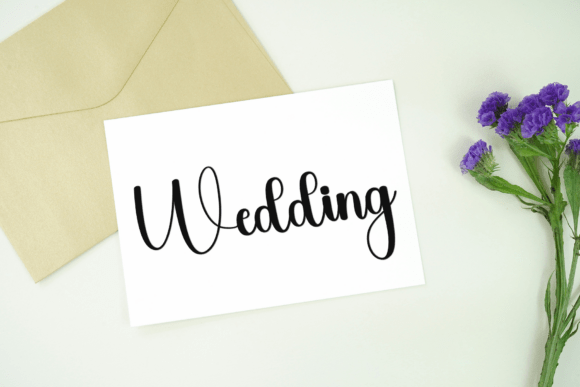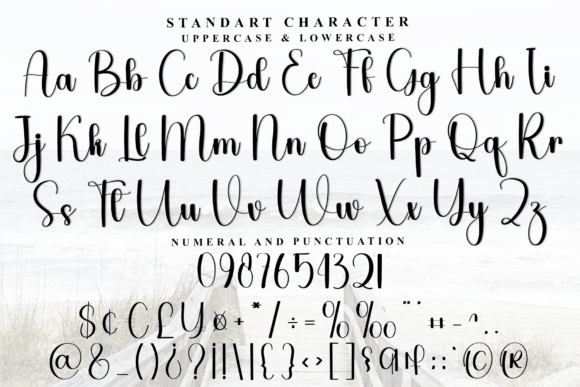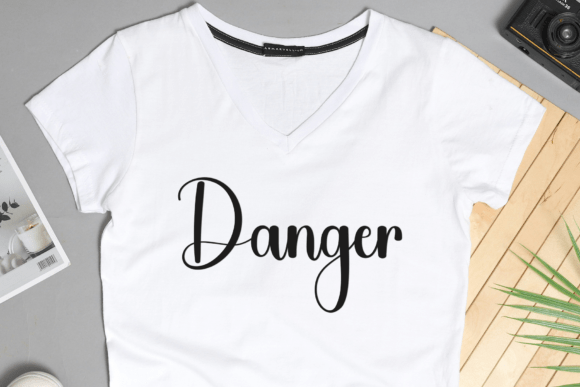
Introduction to Quantum Quality Font
Have you ever been working on a creative project and stumbled upon that perfect font that makes everything click? For designers, this moment is like finding a needle in a haystack – it’s a game-changer. And that’s exactly what we’re about to dive into – the incredible Quantum Quality Font that’s taking the design world by storm.
This exceptional font combines the charm of handwritten script with a modern twist, making it a standout choice for branding, wedding invites, quotes, and lifestyle blog graphics. Its fluid strokes and natural curves evoke the feeling of real handwriting, adding a personal touch to any project.
As a valuable resource for designers, the Quantum Quality Font offers a high-quality design solution that’s both elegant and versatile. With its smooth flow and subtle nuances, it’s perfect for creating visually appealing designs that leave a lasting impression.
Key Features of Quantum Quality Font
- High-quality design resource for creative projects, suitable for both personal and commercial use.
- Transparent background option, allowing for seamless integration with various design elements and backgrounds.
- Includes a comprehensive character set, supporting multiple languages and scripts.
- Designed to work at high resolutions, up to 300 DPI, ensuring crisp and clear typography in various print and digital applications.
- Unique, modern design aesthetic, perfect for adding a touch of sophistication and elegance to any creative project.
Honest Review: Quantum Quality Font
I recently stumbled upon the Quantum Quality Font, a high-quality design resource that’s perfect for creative projects. One thing that caught my attention was its sleek and modern design style, making it an excellent choice for a wide range of applications.
What works well: ✨ The font has a wide range of styles, from light to bold, which allows for flexibility in design projects. The transparent background makes it easy to use with any color scheme or image.
- The Quantum Quality Font is a great resource for designers who want a professional-looking font without breaking the bank.
- The font is highly customizable, making it easy to adapt to different design styles.
However, there are a few limitations: ⚠️ The font is only available in a limited number of languages, which may be a drawback for designers working on international projects.
Overall, I’m impressed with the Quantum Quality Font. It’s a great addition to any designer’s toolkit, offering a high-quality design resource at an affordable price. With its sleek design and transparent background, it’s perfect for creative projects that require a professional touch.
Design Resource
The Quantum Quality Font is a high-quality design resource ideal for any creative project. With its sleek and modern design, it’s perfect for adding a touch of sophistication to your work.
Tips for Getting the Most Out of Quantum Quality Font
For the best results, use the Quantum Quality Font on a transparent background. This will allow the font to stand out and add a touch of elegance to your designs.
The Quantum Quality Font is ideal for use in a variety of creative projects, including:
- Business cards and marketing materials
- Logos and branding
- Posters and flyers
- Presentations and documents
Alternatives to Quantum Quality Font